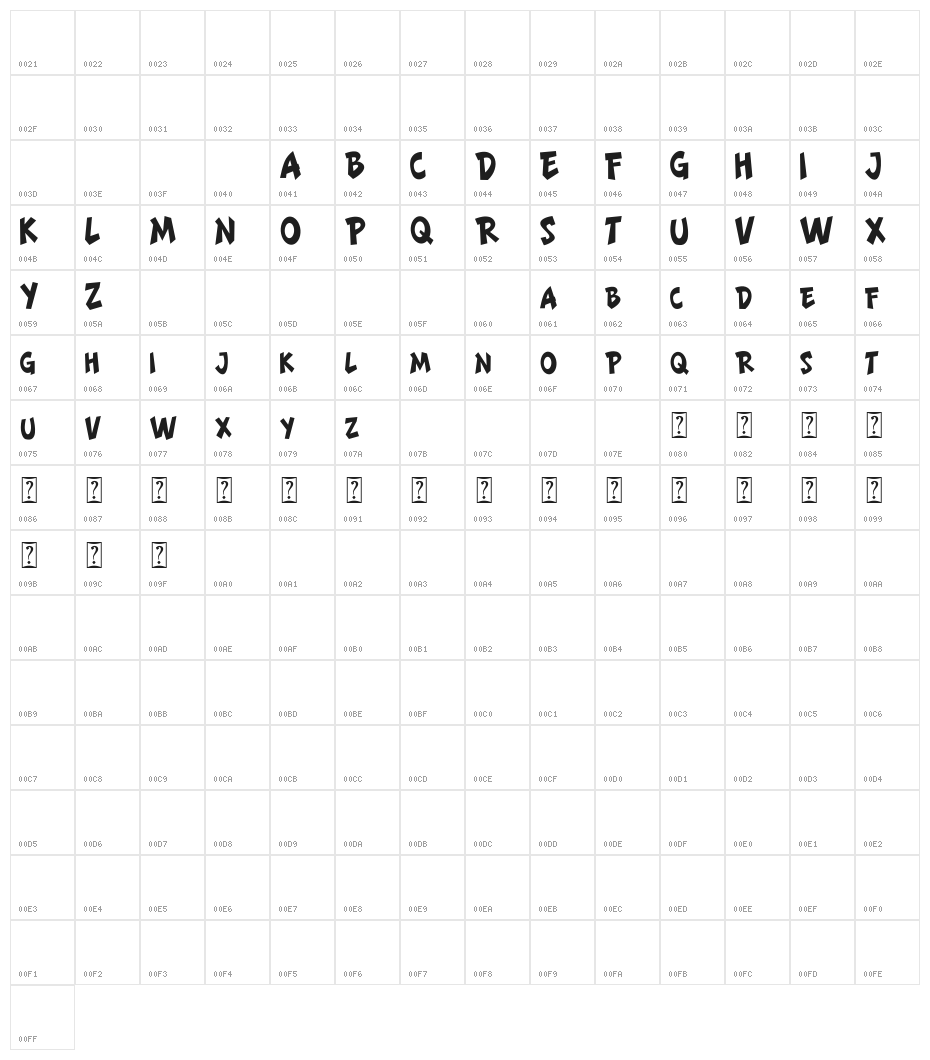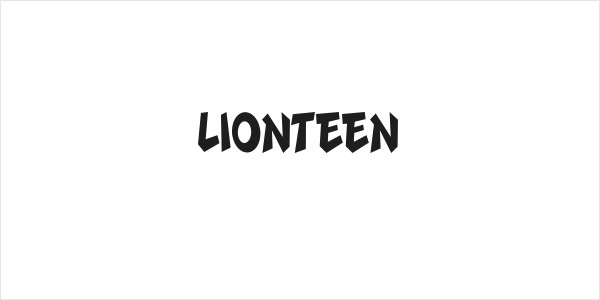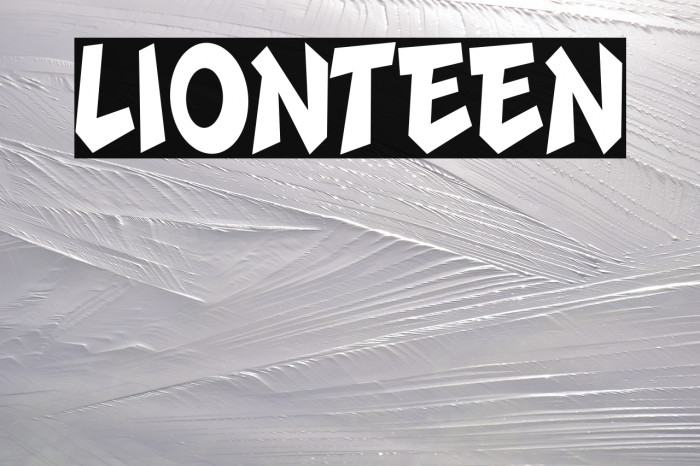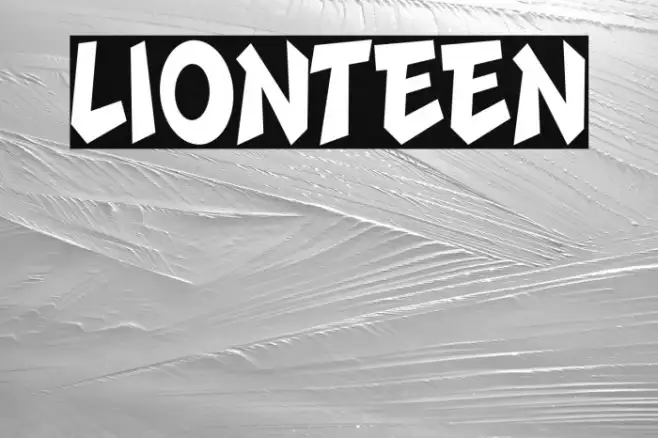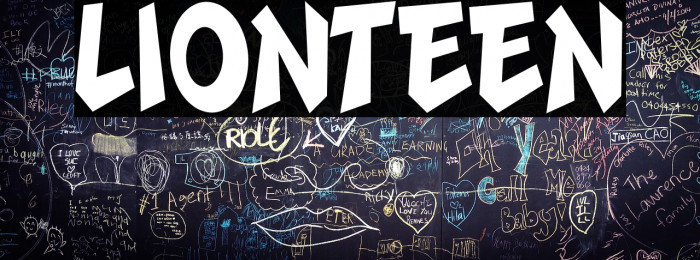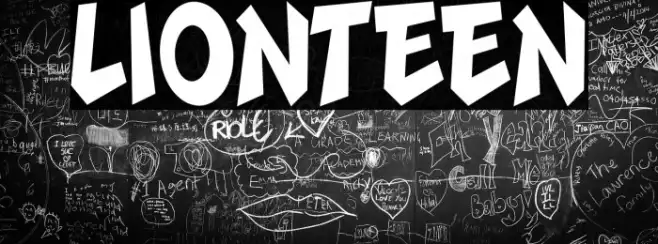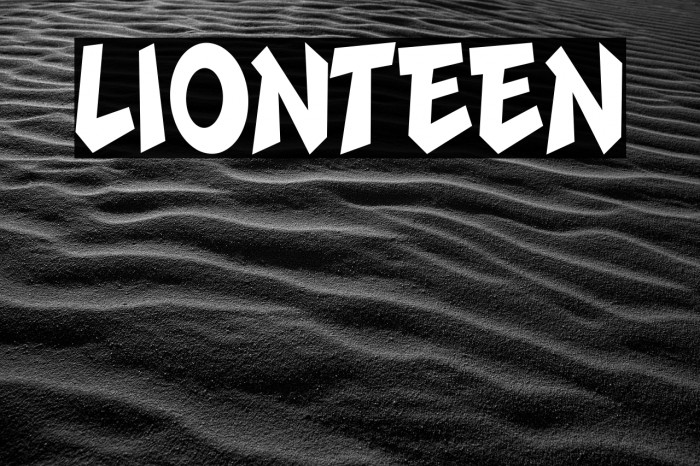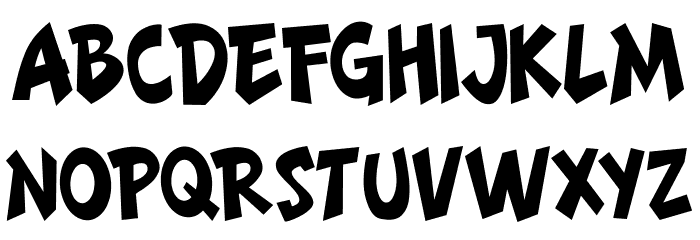
LIONTEEN Font
LIONTEEN Description
This font features a bold and dynamic style with a playful and energetic appearance. The letters are characterized by their thick strokes and slightly irregular shapes, giving them a hand-drawn, cartoonish feel. The uppercase letters are particularly striking, with exaggerated angles and a sense of movement that suggests action and excitement. The font's design is both eye-catching and approachable, making it suitable for a variety of creative projects. Its boldness ensures that it stands out in any context, while the playful design adds a touch of fun and whimsy.
| Overall Style | Playful, Energetic, Cartoonish |
| Proposed Projects | Ideal for comic books, children's books, playful branding, and posters. |